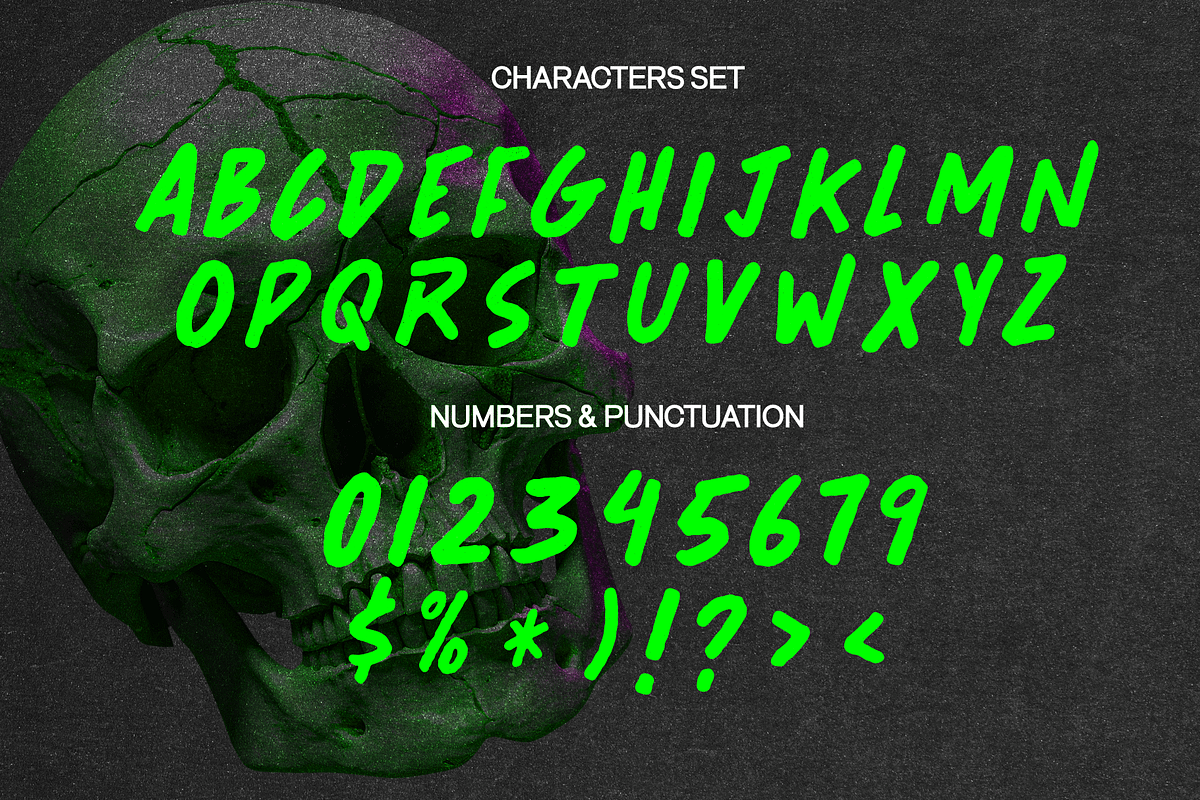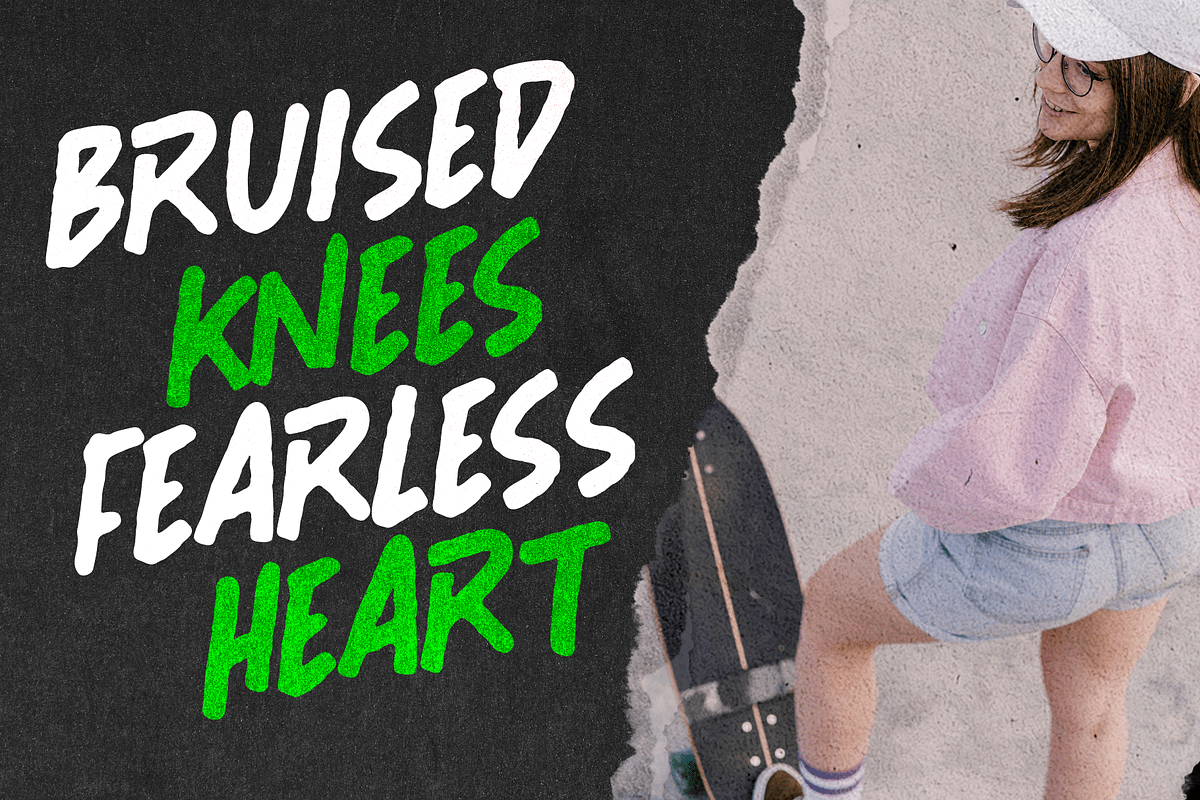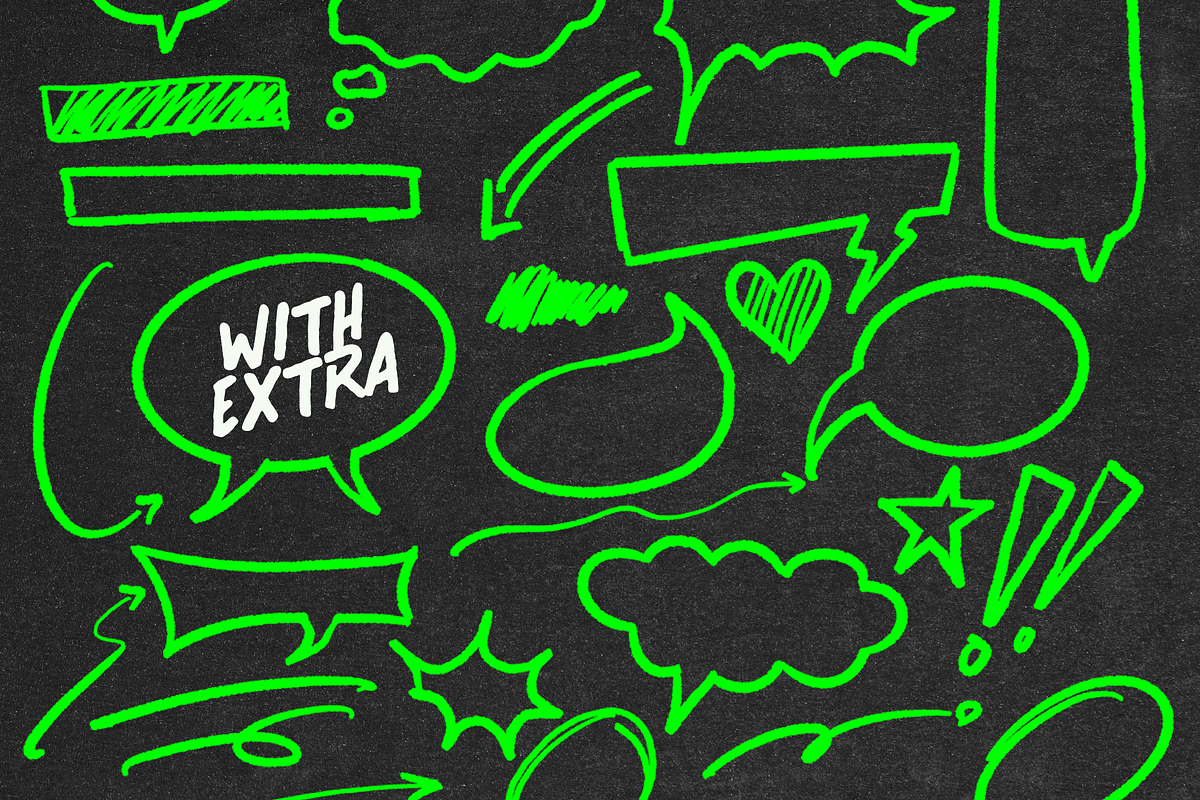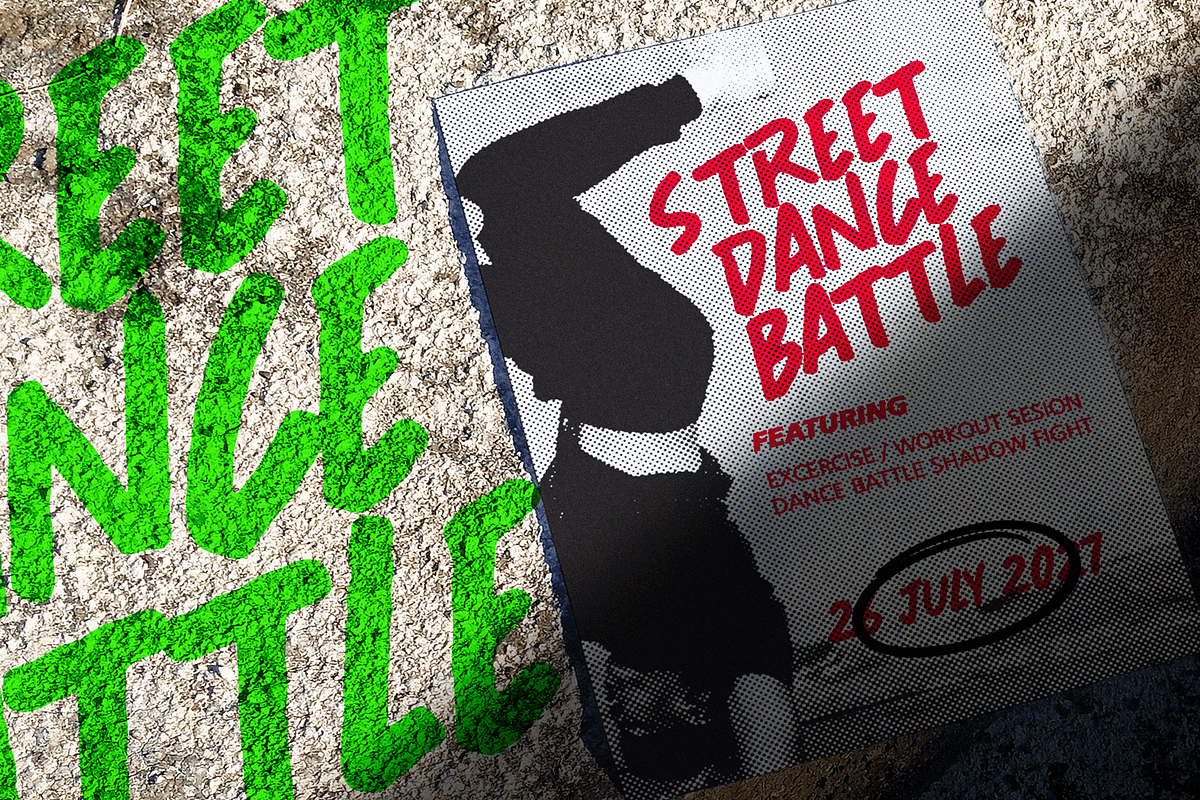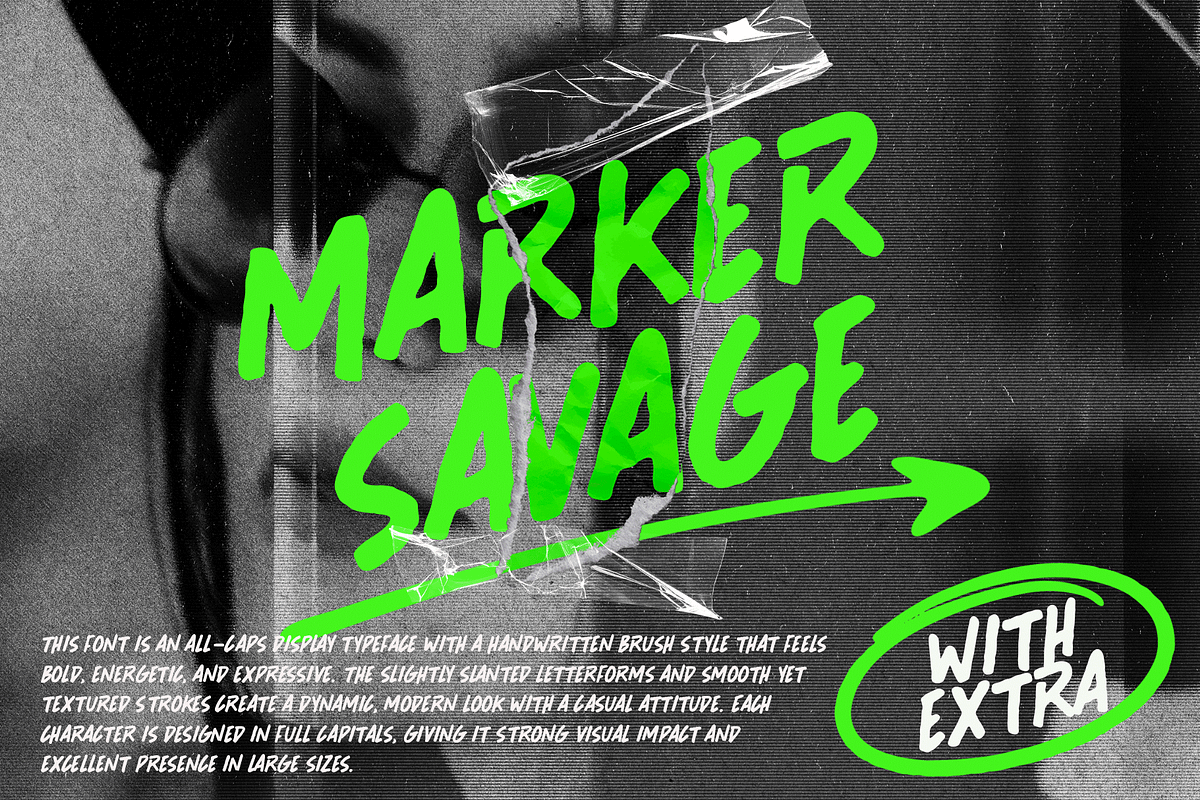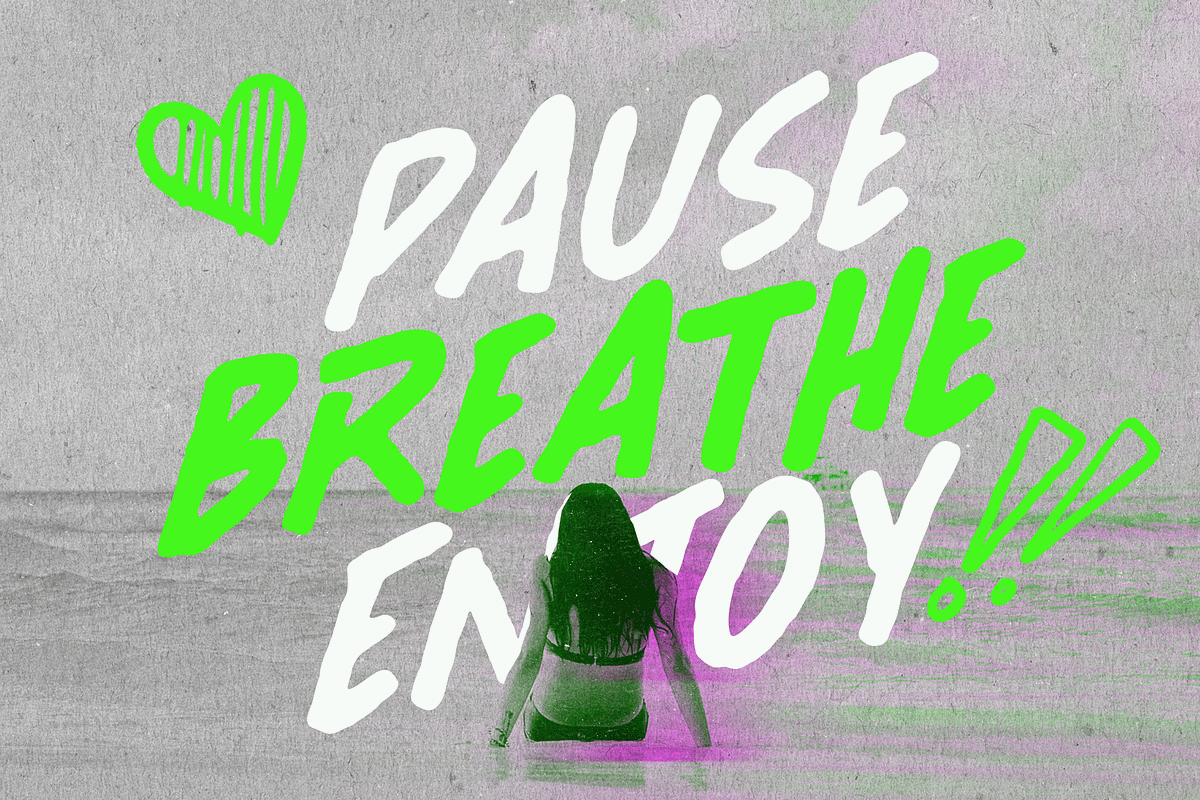
Marker Savage
This font is an all-caps display typeface with a handwritten brush style that feels bold, energetic, and expressive. The slightly slanted letterforms and smooth yet textured strokes create a dynamic, modern look with a casual attitude. Each character is designed in full capitals, giving it strong visual impact and excellent presence in large sizes.